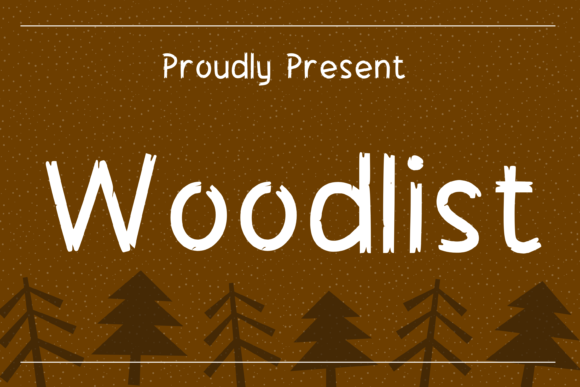
Embrace the Unconventional Charm of Woodlist Font: A Journey Through Nature's Canvas
In a world saturated with digital monotony, Woodlist Font stands as an artistic beacon, beckoning you to step into a realm of untamed creativity. Inspired by the whispers of nature's vast woodlands, this display font embodies the essence of untamed beauty, inviting you to paint your digital canvas with strokes of organic elegance.
Woodlist Font: A Symphony of Nature's Elegance
Crafted with meticulous attention to detail, Woodlist Font captures the essence of rustic charm, beckoning you to escape the confines of conventional typography. Its organic flow and natural imperfections evoke the raw beauty of weathered wood, adding a touch of warmth and authenticity to your designs.
Unleash Your Creativity: Endless Possibilities Await
With Woodlist Font, your imagination becomes the only limit. Whether you're crafting captivating logos, designing eye-catching posters, or captivating social media graphics, this versatile font effortlessly adapts to your creative vision. Its distinctive character shines through, adding a touch of whimsy and intrigue to any project.
A Font Synonymous with Quality
Created by the skilled hands of nuraisyahamalia1729, Woodlist Font is a testament to artistic excellence. Every curve, every stroke, every subtle nuance has been meticulously crafted to ensure an exceptional user experience. Trust in the quality of this font, and let your designs flourish with unparalleled beauty.
Embrace the Call of the Wild: Woodlist Font Awaits
As you embark on your creative journey with Woodlist Font, prepare to be mesmerized by its captivating charm. Let your imagination run wild as you explore the endless possibilities it presents. Dare to embrace the unconventional, to break free from the mundane, and to create designs that resonate with the untamed spirit of nature.